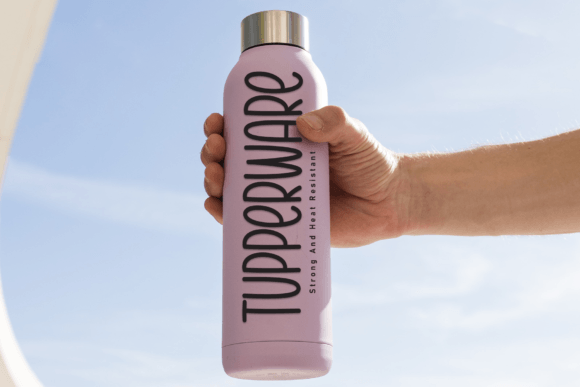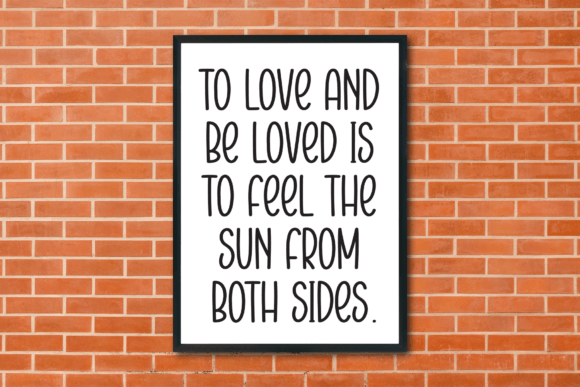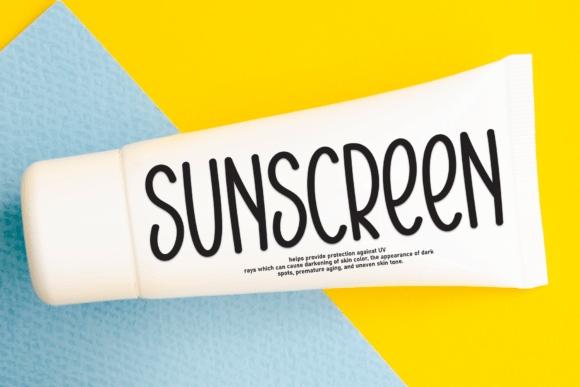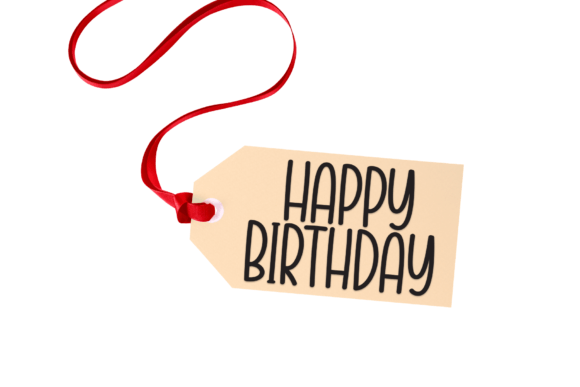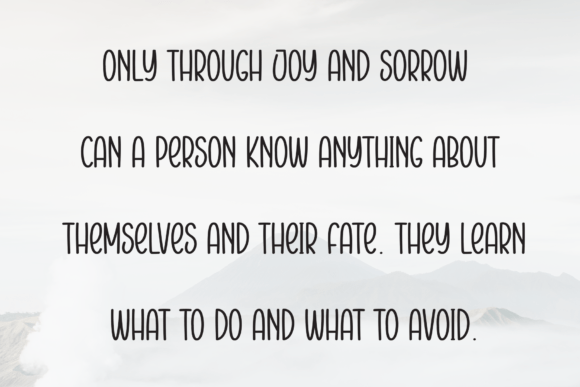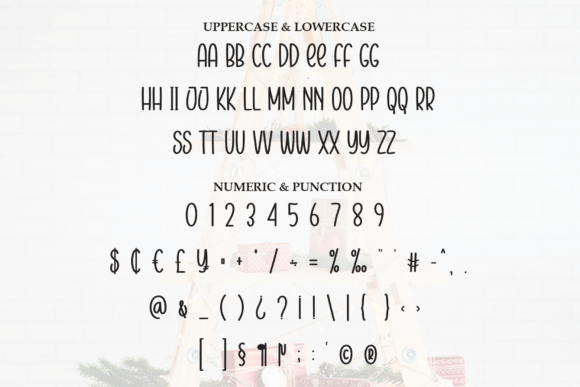
Elevate Your Design with Decoration Font: A Timeless Choice for Creative Projects
Are you looking for a font that adds a touch of style to your projects without overwhelming the overall aesthetic? Look no further than Decoration, a straightforward and versatile display font designed to make your text stand out. With its clean lines and simple design, Decoration is perfect for a wide range of creative projects, from invitations and headers to any other design element that requires a classic and timeless appeal.
The Power of Simplicity in Typography
In the world of typography, simplicity is often the key to creating a lasting impression. A font that is too ornate or complicated can quickly become overwhelming, detracting from the overall message or aesthetic of a project. Decoration font understands this principle, offering a clean and uncomplicated design that effortlessly elevates your typography. Its straightforward approach ensures that your text is not only easily readable but also visually appealing, making it perfect for designers and crafters who value clarity and style.
One of the standout features of Decoration font is its versatility. Whether you’re working on a wedding invitation, a business header, or any other project that requires a touch of elegance, Decoration fits the bill perfectly. Its simple yet stylish design makes it suitable for a wide range of applications, from digital platforms to print materials. This versatility is a significant advantage for designers and crafters who work on diverse projects and need a reliable font that can adapt to different contexts.
Why Choose Decoration Font?
There are several reasons why Decoration font should be your go-to choice for your typography needs:
- Easy to Use: Decoration font is designed to be user-friendly, making it easy to incorporate into your projects without requiring extensive design experience.
- Classic Appeal: Its simple design ensures a classic and timeless appeal that won’t go out of style anytime soon.
- High Readability: The clean lines and straightforward design of Decoration font ensure that your text is easily readable, even at smaller sizes.
- Versatile: From digital displays to print materials, Decoration font adapts seamlessly to different mediums and applications.
How to Use Decoration Font in Your Projects
Incorporating Decoration font into your projects is straightforward. Here are a few tips to get you started:
- Pair with Other Fonts: Decoration font works well when paired with other fonts, especially those with a more ornate or decorative design. This contrast can add depth and interest to your typography.
- Experiment with Sizes: Don’t be afraid to experiment with different sizes to see how Decoration font looks in various contexts. Its simplicity ensures that it will remain stylish and legible even at larger sizes.
- Use Across Different Mediums: Take advantage of Decoration font’s versatility by using it across different mediums, from digital displays to print materials.
Decoration font is a powerful tool for designers and crafters looking to elevate their typography with a touch of style and simplicity. Its clean lines, simple design, and versatile nature make it perfect for a wide range of creative projects. Whether you’re creating invitations, headers, or any other design element, Decoration font ensures a classic and timeless appeal that will enhance the visual appeal of your projects. So, why wait? Explore the possibilities with Decoration font today and take your typography to the next level.